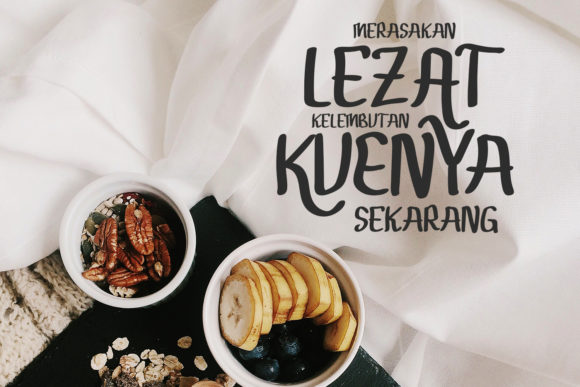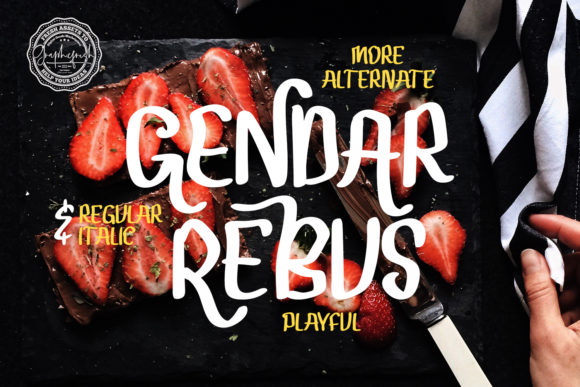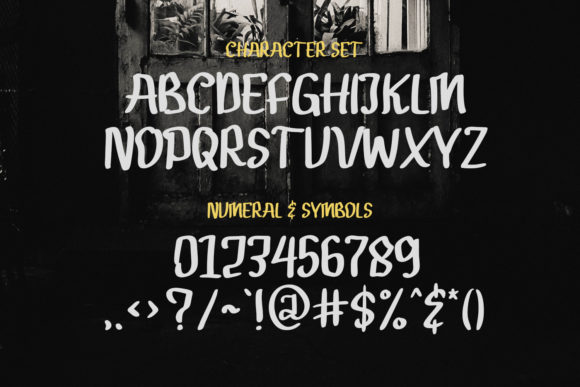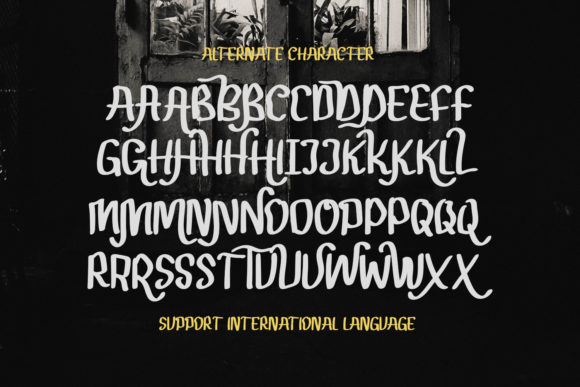
Unleash Your Creativity with the Quirky Gendar Rebus Font
Enter the Gendar Rebus Font, a simple yet offbeat display font that adds an authentic twist to any project. With its unique character, Gendar Rebus Font is perfect for designers looking to inject a bit of whimsy into their work. Whether you’re working on a branding project, creating a social media campaign, or designing a brochure, this font is sure to bring a smile to your face and a touch of personality to your design.
- Unique Characteristics: Gendar Rebus Font features a distinctive, modern design with a unique blend of geometric and organic elements, making it perfect for designers seeking a stylish and eye-catching font.
Gendar Rebus Font Review
I recently had the chance to work with the Gendar Rebus Font, and I must say, it’s a unique and interesting addition to any design project. Here are my thoughts:
- ✨ Beautifully crafted letters: The font has a beautiful, hand-crafted feel to it, making it perfect for projects that need a touch of elegance and sophistication.
- ✨ Versatile: Gendar Rebus Font can be used for both body text and headings, making it a great choice for projects that require a consistent look and feel.
- ✨ Wide language support: The font supports a wide range of languages, making it a great choice for projects that require multilingual support.
- ⚠️ Limited font sizes: The font starts to lose its charm when used at very small sizes, so it’s best to use it at larger font sizes to get the most out of it.
- ⚠️ Not ideal for sans-serif designs: The font has a serif-like quality to it, so it may not be the best choice for sans-serif designs.
Overall, I would give the Gendar Rebus Font 4 out of 5 stars. While it has some limitations, its unique design and versatility make it a great choice for many design projects. I would definitely recommend it to anyone looking for a beautiful and elegant font.
Tips for Getting the Most Out of the Gendar Rebus Font
Use the Gendar Rebus Font in combination with other creative elements, such as graphics and images.
Play with the font’s irregularities to add a touch of personality to your designs.
The Gendar Rebus Font is perfect for creating:
• Social media graphics and posts
• Posters and flyers
• Business cards and branding materials
• Creative and eye-catching presentations
Alternatives to Gendar Rebus Font for Designers
Montserrat is a sans-serif font that originated in Argentina. It’s a modern and urban font perfect for designs that require a clean and sleek aesthetic. Montserrat is ideal for digital interfaces, headlines, and titles. Compared to Gendar Rebus Font, Montserrat is more geometric and less ornate, making it a great choice for designs that need a more minimalist approach.